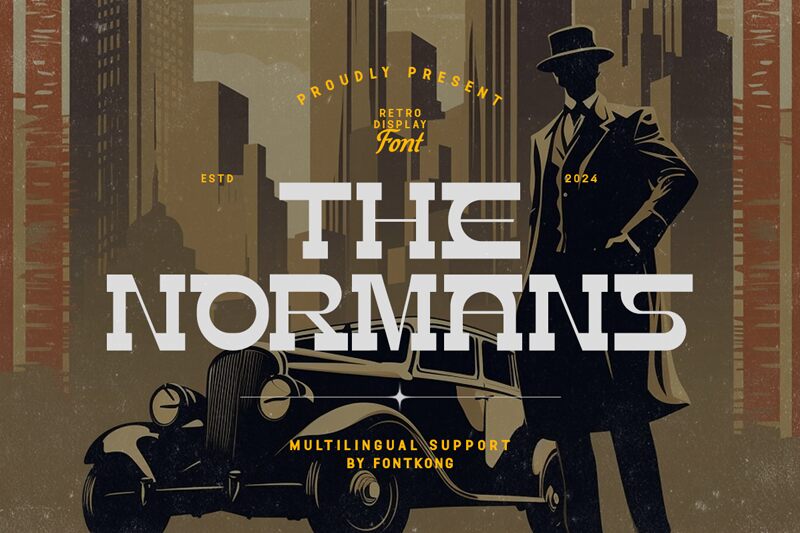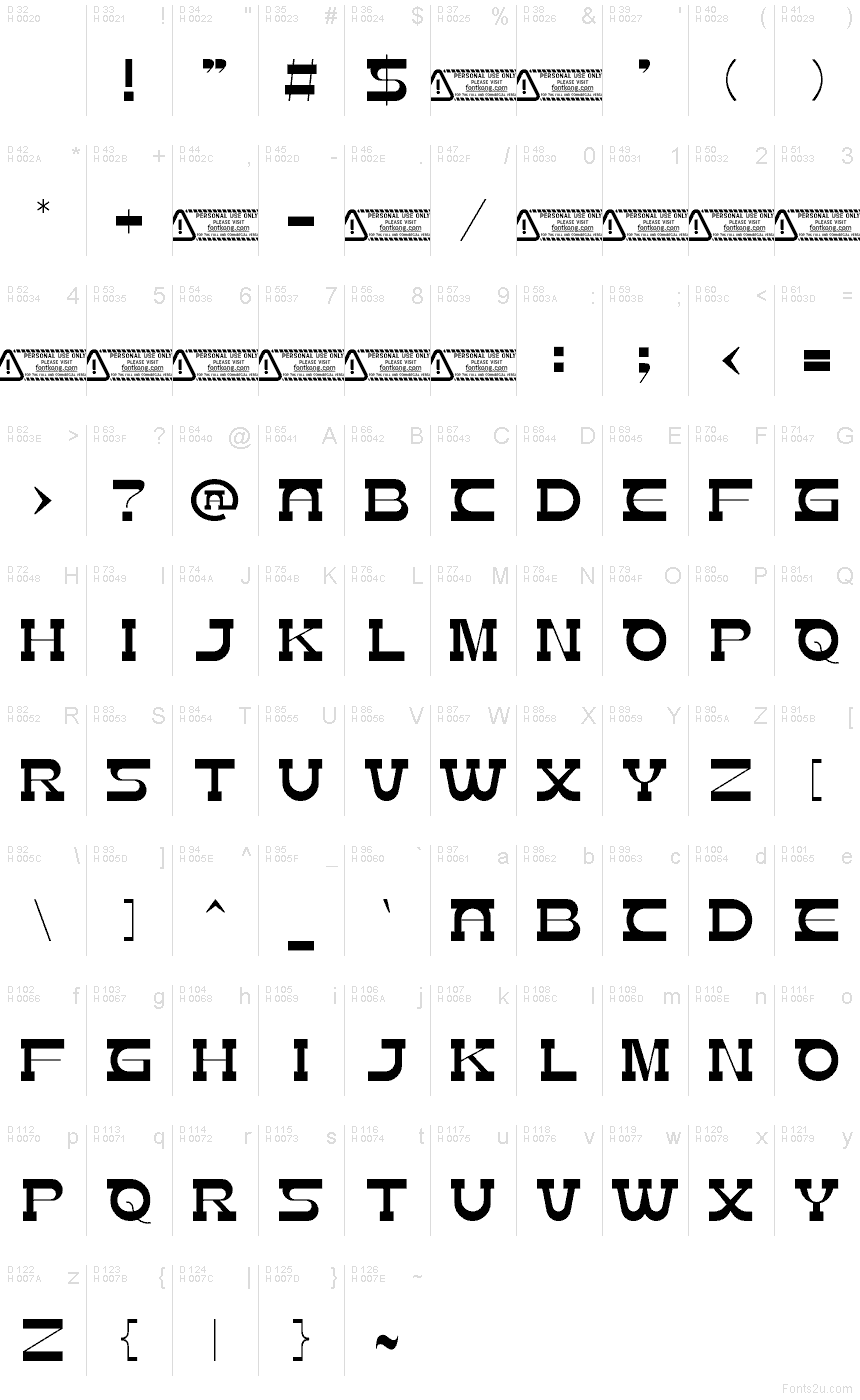
The Normans font by Kong Font is a free retro display typeface with a tall, commanding stance and razor-sharp serifs. Its ultra-condensed forms stack letters into tight columns, while the circular counters and squared-off details give everything a crisp, poster-like punch. It feels like vintage cinema titles or old book covers—bold, orderly, and just a bit dramatic.
Using The Normans font, headlines snap into place with a strong vertical rhythm that instantly grabs attention in logos, magazine covers, packaging, event posters, book titles, and banners. This free font thrives in large sizes where its narrow shapes and clean edges can really show off. Pair it with a simple, open sans-serif for body copy and let The Normans carry your main titles and key phrases.